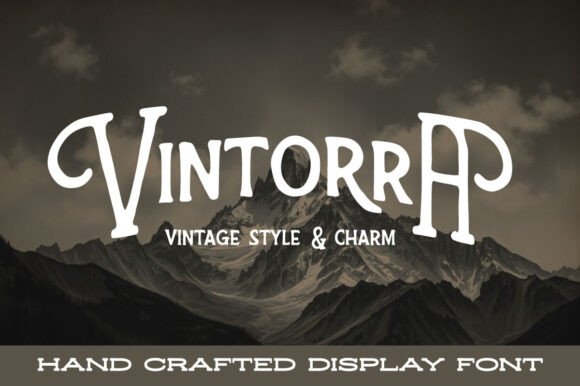
Vintorra Font: Elevating Boutique Web Design
Testing Vintorra in a Heritage E-Commerce Hero Section
When I first loaded Vintorra into my design software for a boutique ceramics e-commerce project, I was specifically looking for a Slab Serif that could anchor the hero section without feeling heavy or outdated. As web designers know, Fonts carry emotional weight before a user reads a single word of copy, and this particular typeface immediately struck the right balance between digital utility and artisanal warmth. The project required a visual identity that felt established and trustworthy, yet modern enough to convert mobile shoppers browsing on small screens. Placing Vintorra against a muted clay-toned background revealed its true strength; the classic letterforms provided immediate structure, while the subtle aged details added a layer of texture that flat, geometric sans serifs simply cannot achieve in a digital retail environment.
In this specific layout test, I used Vintorra for the primary headline "Handcrafted Heirlooms" at 72px on desktop and scaled it down to 48px for mobile breakpoints. What stood out during the responsive testing phase was how the slab serifs maintained their integrity even when compressed. Often, vintage-style display fonts lose their character or become illegible when resized for mobile viewports, but Vintorra’s robust stroke weight ensured the brand message remained crisp. This is crucial for online store owners who need their value proposition to be instantly scannable. The font didn't just sit on top of the design; it integrated with the photography, creating a cohesive narrative of old-world craftsmanship that supported the premium price point of the products.
Vintorra Typography for Artisan Brand Identity and Trust
Building a credible digital presence for makers and coaches often hinges on selecting Vintorra as a primary display face because it communicates heritage through its refined Slab Serif architecture. Unlike generic serif Fonts that can feel too academic or corporate, this typeface carries a distinct handcrafted charm that aligns perfectly with businesses selling tangible goods or personalized services. During a recent rebrand for a sustainable skincare line, I utilized Vintorra not just for headers, but as a recurring motif in pull quotes and testimonial highlights. The subtle imperfections in the letterforms acted as visual cues for authenticity, signaling to users that real human hands were behind both the product and the website itself.
From a UX perspective, trust is built through consistency and legibility. When applying Vintorra across various touchpoints—from the main navigation logo to Instagram story templates—the font’s timeless elegance created a unified brand experience. I found that it worked exceptionally well when paired with ample whitespace, allowing the intricate details of the glyphs to breathe without cluttering the interface. For creative entrepreneurs, this means you don't need complex graphic elements to establish mood; the typography does the heavy lifting. However, I always advise clients to use this font strategically. It is a powerhouse for establishing tone in above-the-fold content and key conversion areas, but it should be treated as a special ingredient rather than a default setting for every text element on the page.
Pairing Vintorra with Clean Sans Serif Fonts for Readability
To maximize the impact of Vintorra in a functional web layout, I consistently pair this expressive Slab Serif with a neutral, high-x-height sans serif for body copy. While Vintorra excels at capturing attention and conveying old-world craftsmanship, dense paragraphs of text require the frictionless readability of modern grotesque or neo-grotesque Fonts. In my boutique store case study, I matched Vintorra headlines with a clean system-ui stack for product descriptions and checkout forms. This contrast creates a sophisticated visual hierarchy that guides the user’s eye naturally from the emotive header down to the practical information they need to make a purchase decision.
This pairing strategy also addresses accessibility concerns inherent in using decorative typography. While Vintorra is remarkably legible for a vintage-inspired face, its stylistic nuances are best appreciated at larger sizes. By reserving it for H1s, H2s, and accent text, we preserve its novelty and prevent visual fatigue. I tested this combination extensively on low-contrast monitors and in bright outdoor lighting conditions to ensure the transition from the ornate header to the simple body text wasn't jarring. The result was a seamless reading experience where the personality of Vintorra enhanced the content without competing with it. For digital product creators designing course sales pages or coaching sites, this approach ensures that your beautiful branding never comes at the cost of user comprehension or conversion rate optimization.
Optimizing Vintorra Display Text for Mobile Commerce Layouts
Implementing Vintorra on responsive websites requires careful attention to scaling, as this detailed Slab Serif behaves differently on touch devices than standard system Fonts. During the mobile optimization phase of the ceramics shop project, I discovered that the font’s subtle aged details could sometimes merge if the tracking (letter-spacing) was too tight on smaller screens. To counteract this, I increased the letter-spacing by 0.02em for mobile headings and slightly reduced the line height to maintain a compact, impactful silhouette. These micro-adjustments ensured that the timeless elegance of the typeface translated effectively to vertical scrolling environments where screen real estate is precious.
Another critical consideration for mobile commerce is load performance and rendering speed. Because Vintorra features unique glyph shapes that differ from standard web-safe alternatives, serving it as a WOFF2 file is non-negotiable for maintaining fast Core Web Vitals. I also implemented font-display: swap to prevent invisible text during loading, ensuring users could interact with the site immediately even if the custom font hadn't fully rendered. For landing page designers, this technical diligence is as important as the aesthetic choice. A beautiful font that causes layout shift or delays interaction will hurt engagement metrics. By treating Vintorra as a premium asset that requires technical respect, we ensure the handcrafted charm enhances rather than hinders the mobile shopping experience.
Before deploying Vintorra to a live production environment, verifying the commercial license for this specific Slab Serif is an essential step for any professional working with client Fonts. In my workflow, I always review the EULA to confirm coverage for web embedding, social media graphics, and digital advertising assets. Vintorra’s appeal extends beyond static websites; it is frequently requested for email marketing headers and paid ad creatives where brand consistency drives recognition. Ensuring your license covers these diverse applications protects both the designer and the business owner from future compliance issues while unlocking the full potential of the typeface across all digital channels.
Beyond legalities, checking the included character sets and OpenType features is vital for international or multilingual projects. While Vintorra captures the essence of old-world craftsmanship, you must verify it supports the specific diacritics needed for your target audience's language. In the boutique store project, we confirmed support for extended Latin characters before finalizing the design system. Additionally, exploring available alternates can provide flexibility for logo lockups or special campaign banners without needing to switch typefaces. For SaaS founders and course creators investing in a long-term brand identity, understanding these technical and legal parameters ensures that Vintorra remains a reliable, versatile tool in your design arsenal for years to come. The investment in a properly licensed, feature-rich font pays dividends in brand equity and design efficiency.